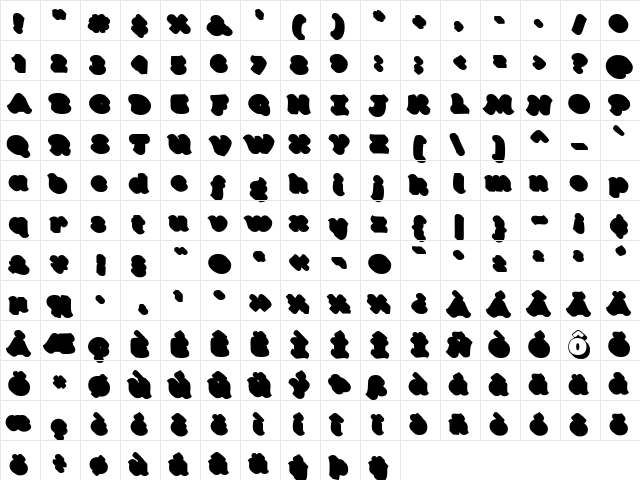
Bigfat Script Xtrude Regular
| Foundry | Hendra Pratama |
| Designer | Hendra Pratama |
Design Context for Bigfat Script Xtrude Typeface
Bigfat Script Xtrude brings a calligraphic fluidity to the page — its connecting strokes and expressive curves give it an unmistakably human quality.
Font Pairing: Combine Bigfat Script Xtrude with a simple geometric sans for maximum contrast — the tension between flowing curves and clean structure is a classic typographic pairing.
Pro Tip: Pair Bigfat Script Xtrude with a clean sans-serif for supporting text. The contrast between fluid script and geometric structure creates an elegant typographic hierarchy.